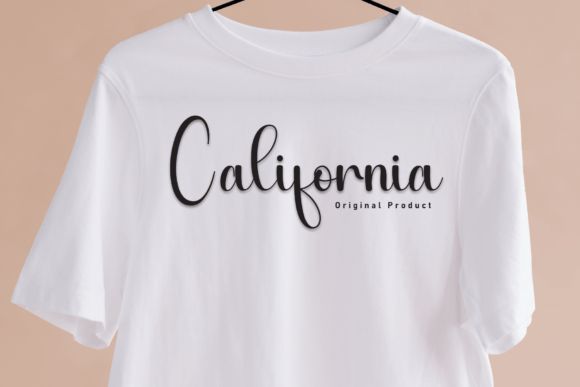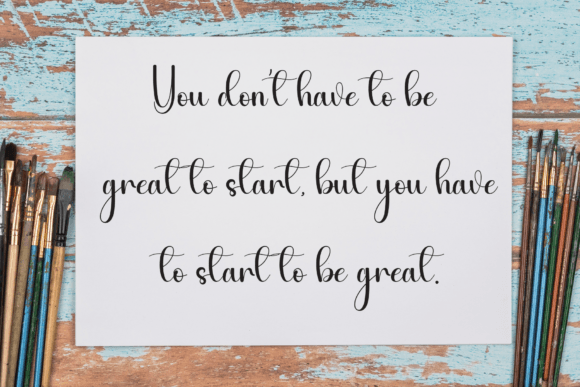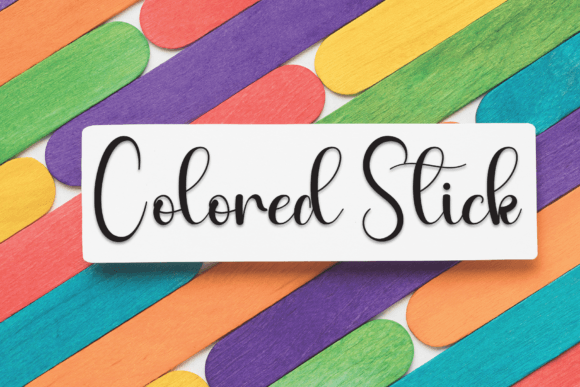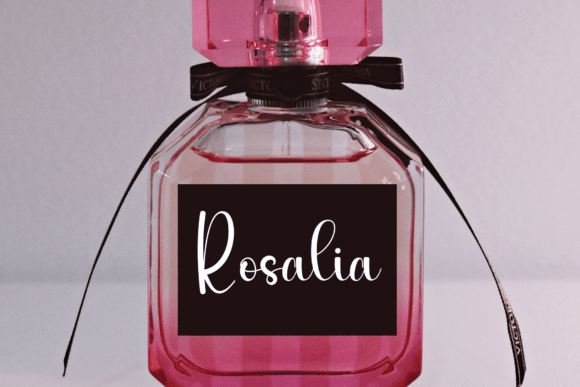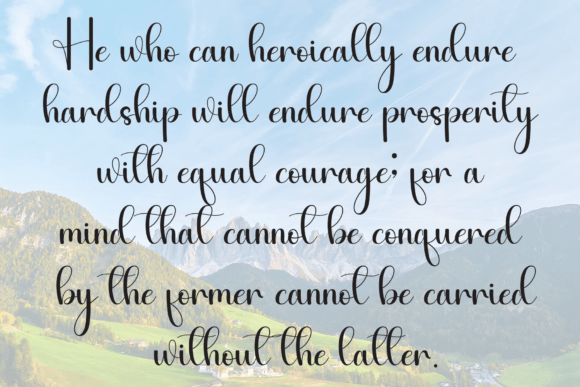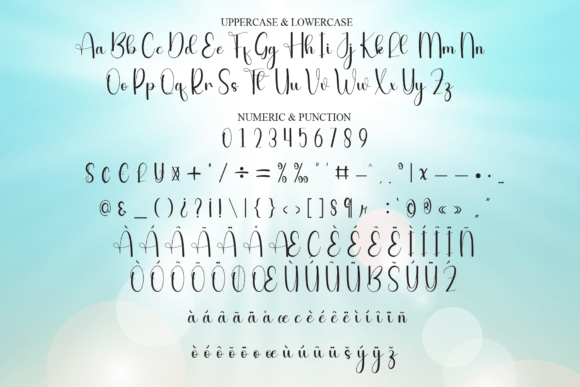
Brighten Font: The Perfect Addition to Your Design Arsenal
Are you on the hunt for a font that exudes warmth, charm, and playfulness? Look no further than Brighten Font, a delightful handwritten display font that’s sure to breathe life into your designs. With its endearing characteristics, Brighten Font is an indispensable asset for crafters and designers looking to add a sprinkle of cheer to their creations.
A Font that Embodies Fun
Brighten Font is more than just a font – it’s an experience. Its playful and delightful characteristics make it the perfect choice for designs that require a lighthearted and inviting touch. Whether you’re crafting wedding invitations, heartfelt cards, or any other design that needs a dash of personality, Brighten Font is the perfect fit. Its unique and charming aesthetic is sure to leave a lasting impression on your audience, making it an unparalleled choice for designers and crafters.
The Perfect Choice for Wedding Invitations and Cards
Wedding invitations and cards are special occasions that require a font that’s both elegant and playful. Brighten Font fits the bill perfectly, adding a touch of whimsy and romance to your designs. Its handwritten display style gives your invitations and cards a personal and intimate feel, making them truly unforgettable. With Brighten Font, you can create designs that are both beautiful and meaningful, making it the perfect choice for couples and designers alike.
Adding a Sprinkle of Cheer to Your Designs
Brighten Font is more than just a font – it’s a design solution. Its playful and delightful characteristics make it the perfect choice for designers and crafters looking to add a dash of personality to their creations. Whether you’re designing for a client or working on a personal project, Brighten Font is sure to bring a smile to your face. Its unique and charming aesthetic is contagious, making it the perfect choice for designs that require a lighthearted and inviting touch.
Key Features of Brighten Font
- Handwritten Display Font: Brighten Font is a beautiful handwritten display font that’s perfect for adding a personal touch to your designs.
- Playful and Delightful Characteristics: Brighten Font’s playful and delightful characteristics make it the perfect choice for designs that require a lighthearted and inviting touch.
- Perfect for Wedding Invitations and Cards: Brighten Font is the perfect choice for wedding invitations and cards, adding a touch of whimsy and romance to your designs.
- Unique and Charming Aesthetic: Brighten Font’s unique and charming aesthetic is sure to leave a lasting impression on your audience.
Why Choose Brighten Font?
There are many fonts to choose from, but Brighten Font stands out from the rest. Here are just a few reasons why:
- Easy to Read: Brighten Font is easy to read, making it perfect for designs that require a clear and concise message.
- Versatile: Brighten Font is versatile, making it perfect for a wide range of design applications.
- Unique: Brighten Font’s unique and charming aesthetic makes it the perfect choice for designers and crafters looking to add a dash of personality to their creations.
Tips for Using Brighten Font
Here are a few tips for using Brighten Font in your designs:
- Use it for Headings: Brighten Font is perfect for headings, adding a touch of personality and whimsy to your designs.
- Pair it with Other Fonts: Brighten Font pairs well with other fonts, making it perfect for designs that require a combination of fonts.
- Experiment with Colors: Brighten Font looks great in a variety of colors, so don’t be afraid to experiment and find the perfect hue for your design.
In conclusion, Brighten Font is a delightful handwritten display font that’s sure to breathe life into your designs. Its playful and delightful characteristics make it the perfect choice for wedding invitations, heartfelt cards, and any other design that requires a lighthearted and inviting touch. With its unique and charming aesthetic, Brighten Font is an indispensable asset for designers and crafters looking to add a sprinkle of cheer to their creations.